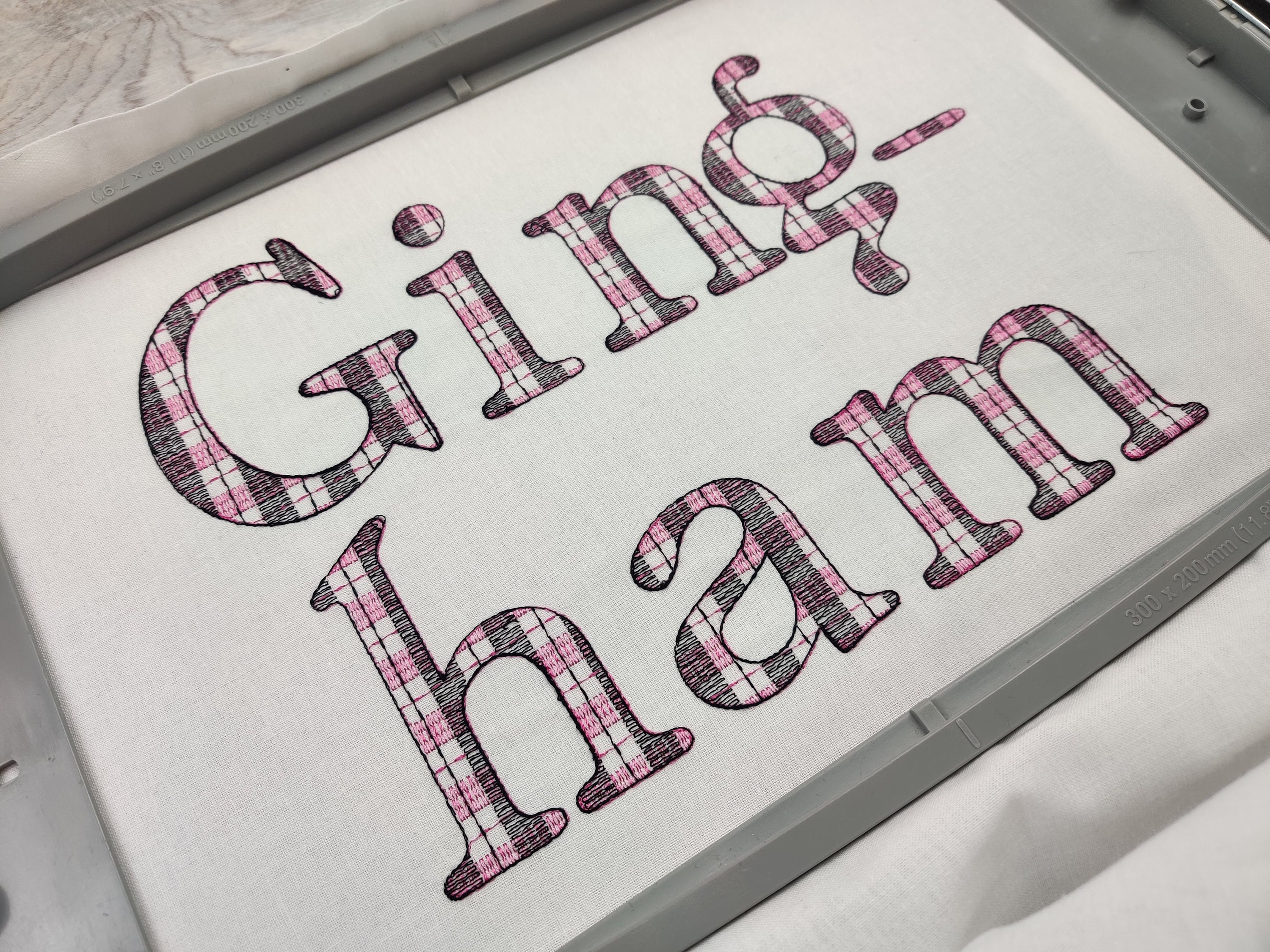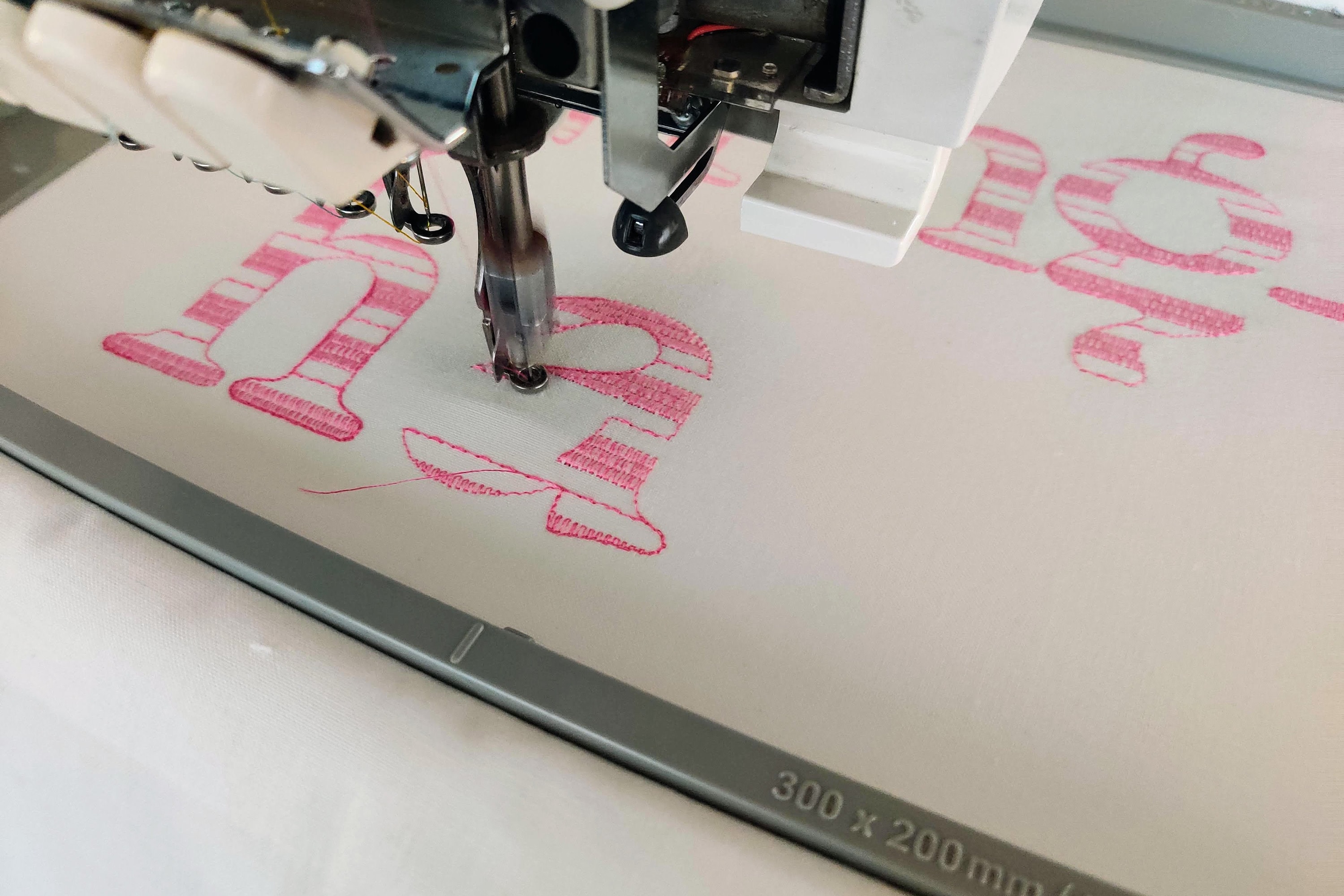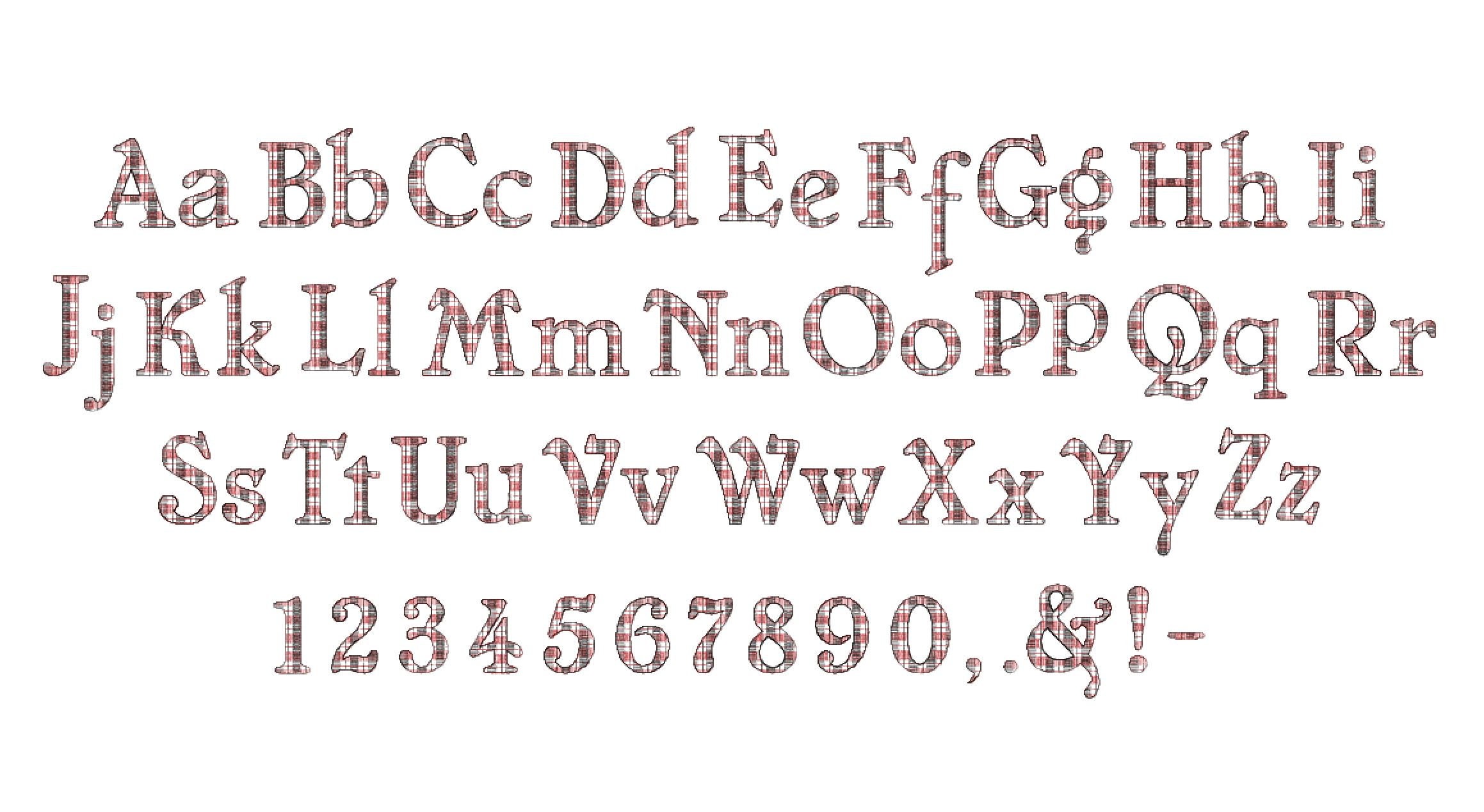
Buffalo Plaid Tartan Gingham Font BX light sketch outline machine embroidery design font alphabet letters 2, 2.5, 3, 4, 5 inches
This is a quick stitch design, the background fabric looks through. Stunning effect! Gingham lines are part of the embroidery.